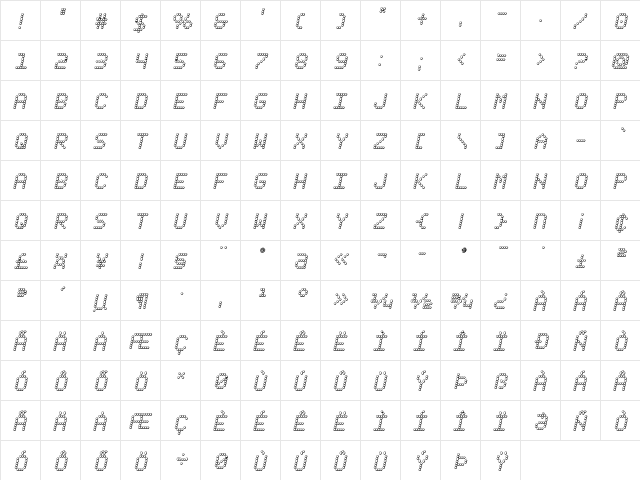
Fanfare Ticker 3D Italic Italic
Design Context for Fanfare Ticker 3D Italic Typeface
Fanfare Ticker 3D Italic takes a measured approach to typography — its balanced proportions and neutral character make it a reliable workhorse for both digital and print work. The dynamic lean of this cut emphasises speed and emphasis in any layout.